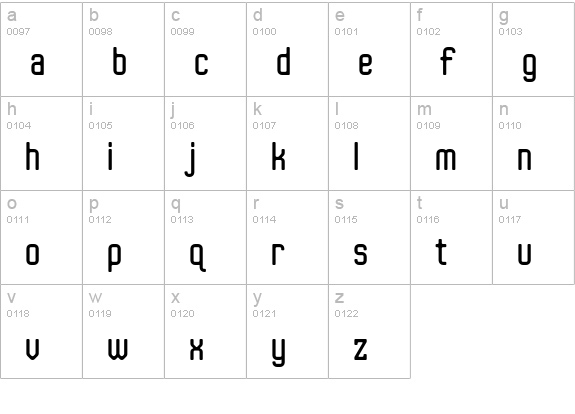
JLS Data Gothic-C NC font is a stunning typeface that embodies elegance and sophistication. Designed with precision and attention to detail, this font is perfect for adding a touch of professionalism to any project. Its sleek and geometric design makes it highly versatile, suitable for a wide range of applications such as headlines, posters, logos, and more. What sets JLS Data Gothic-C NC font apart is that it is freely available to download at FontsMarket.com. This means that you can enhance your design work without any cost or limitations. It's a rare opportunity to access such a high-quality font without having to spend a dime. With its clean lines and well-defined shapes, JLS Data Gothic-C NC font delivers an impactful visual impact. Its legibility is exceptional, making it ideal for both print and digital media. The sharp edges and bold strokes give it a contemporary feel that is both modern and timeless. Whether you're a professional designer or a beginner, JLS Data Gothic-C NC font is a valuable asset to add to your collection. Its versatility allows it to be easily paired with other fonts, creating visually stunning combinations. It provides endless possibilities for creating unique designs that will capture attention and leave a lasting impression. Don't miss out on the opportunity to download JLS Data Gothic-C NC font for free at FontsMarket.com. Take advantage of this generous offer and elevate your design projects to new heights. Transform your work into a masterpiece with this remarkable font that exudes professionalism and style.